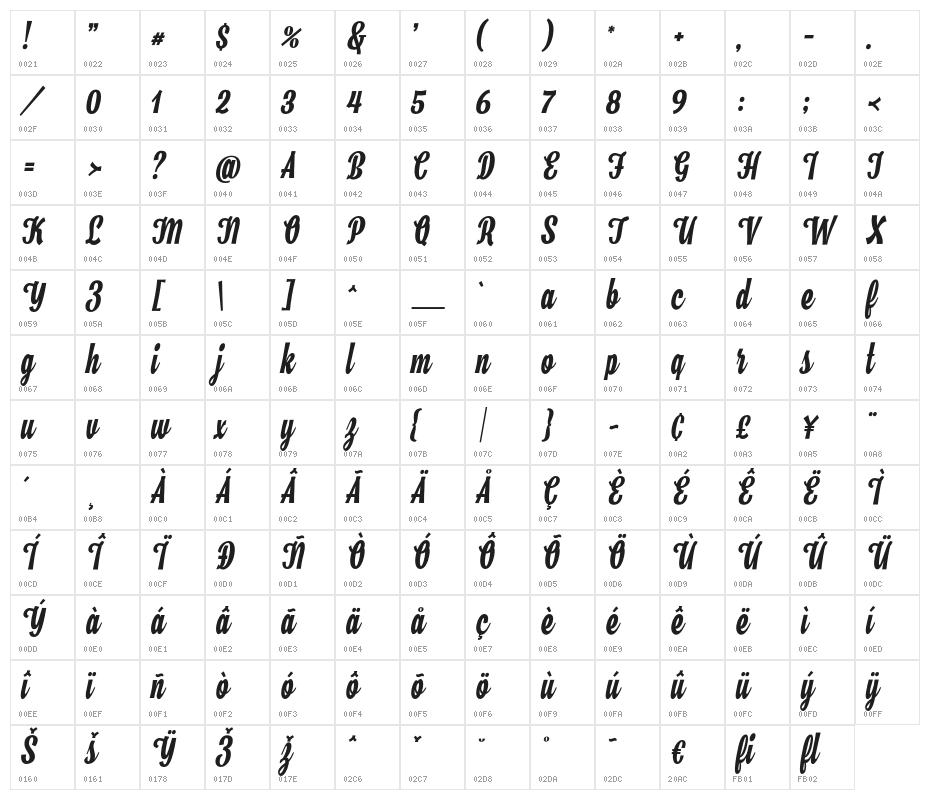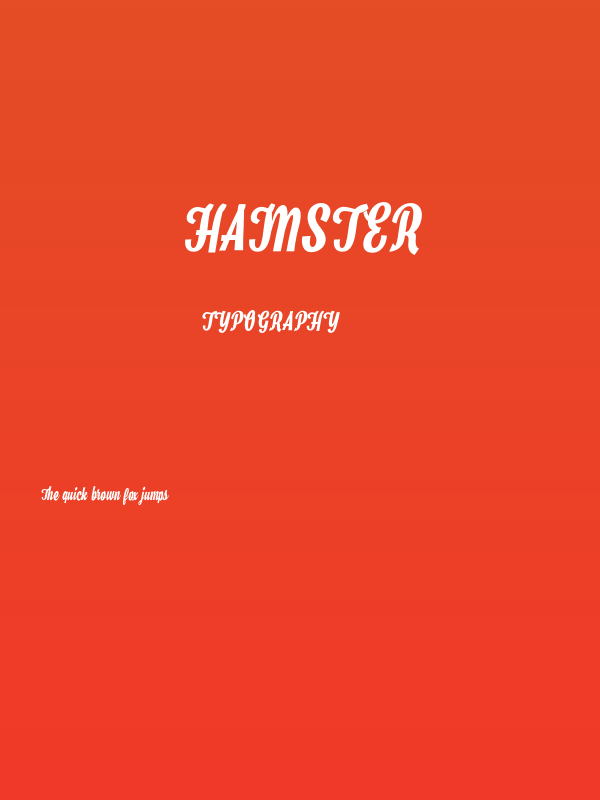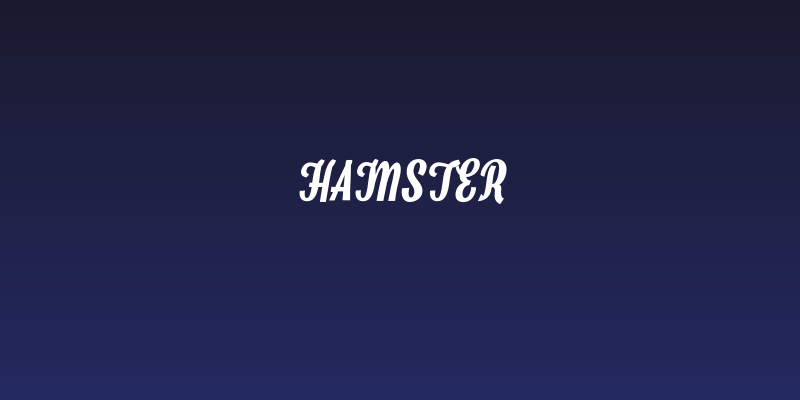
Hamster Font
Hamster Description
This font features a bold and dynamic script style, characterized by its flowing, cursive letterforms. The uppercase letters are elegantly crafted with sweeping curves and a slight slant, giving a sense of movement and fluidity. The lowercase letters maintain a consistent style, with smooth connections between each character, enhancing the script's cohesive appearance. The numerals are bold and clear, matching the overall aesthetic of the font. Special characters are designed with the same attention to detail, ensuring they integrate seamlessly with the rest of the typeface. This font exudes a sense of elegance and sophistication, making it suitable for a variety of creative applications.
| Proposed Projects | Ideal for branding, invitations, greeting cards, and elegant signage. |